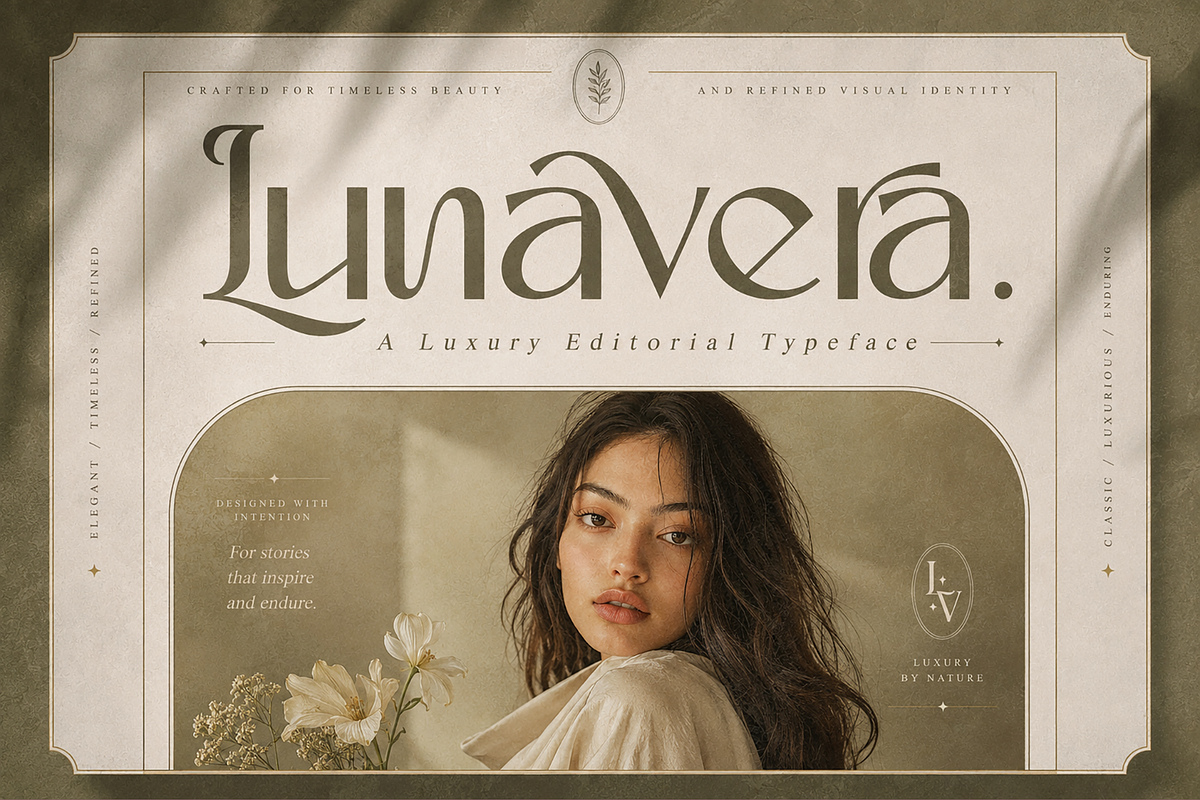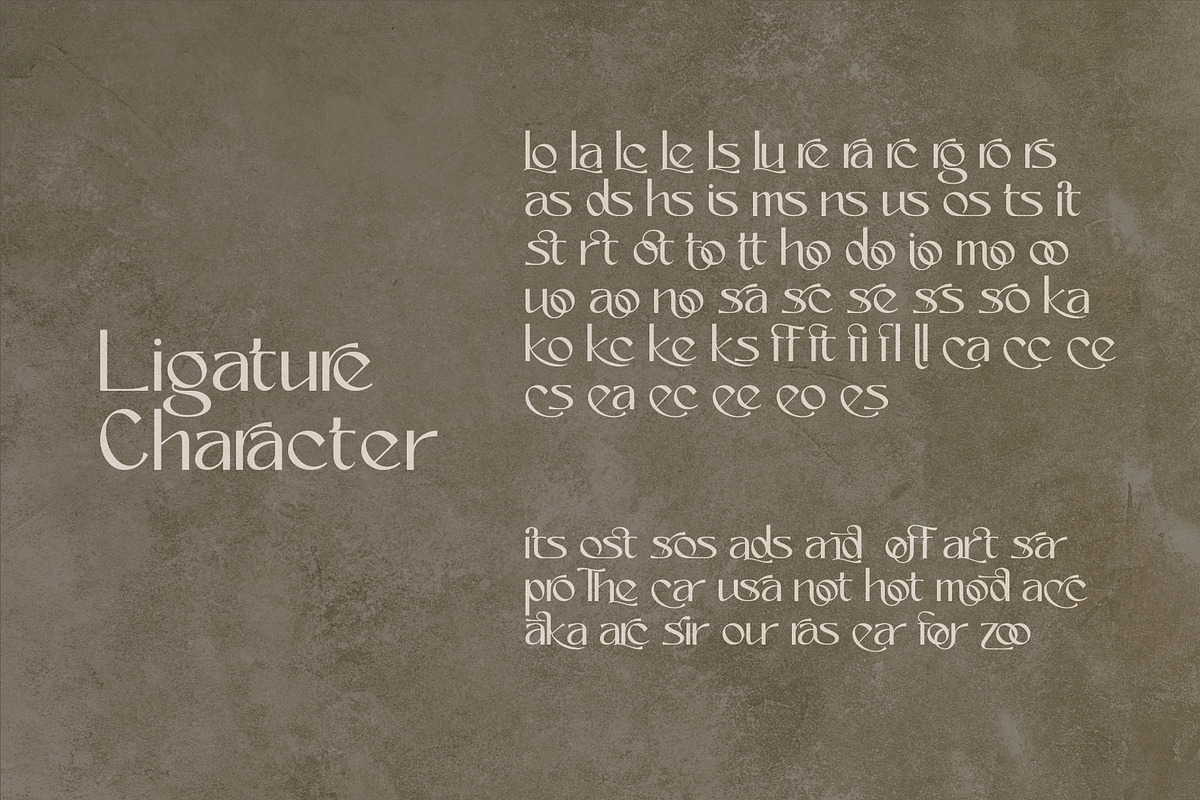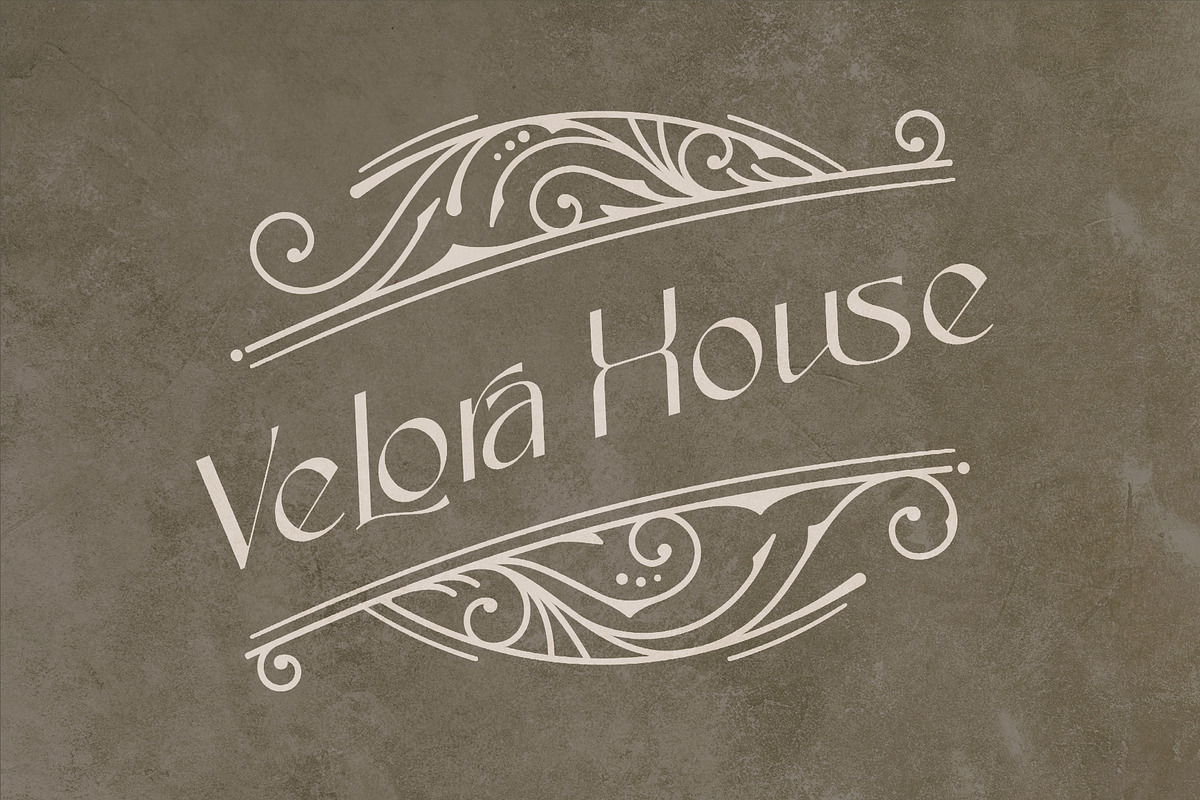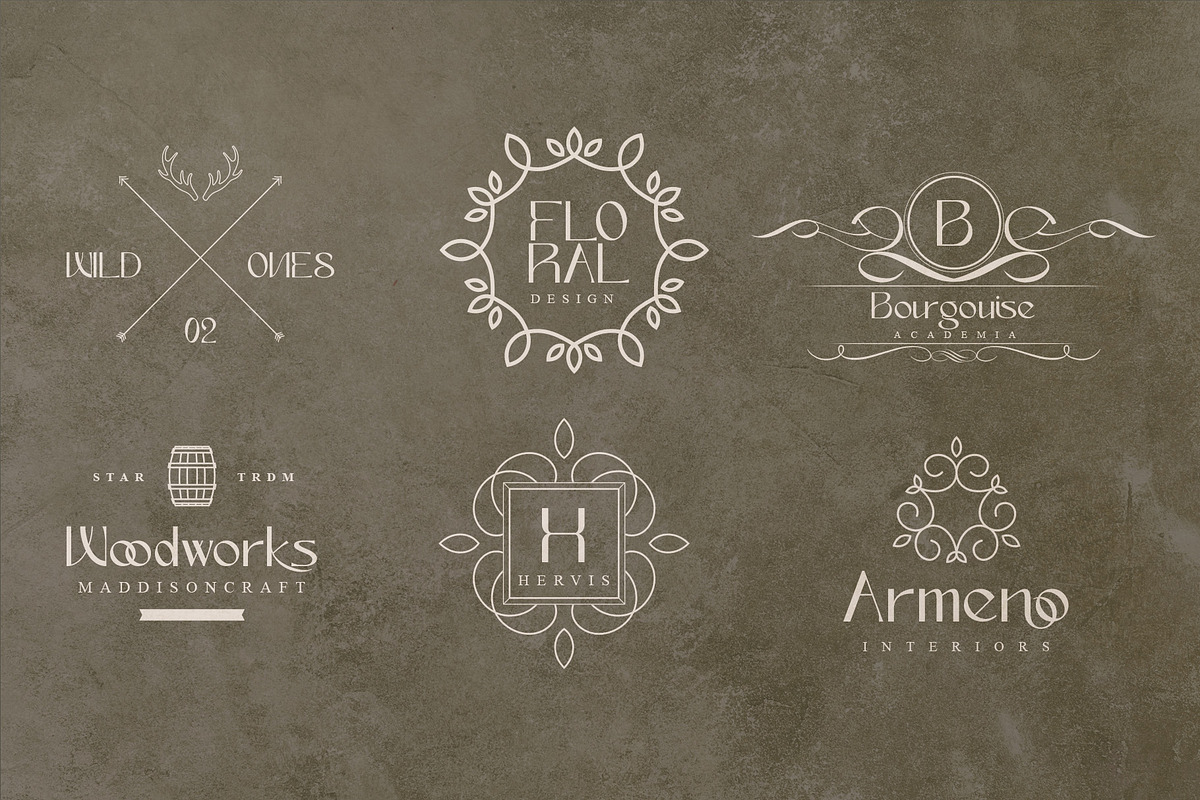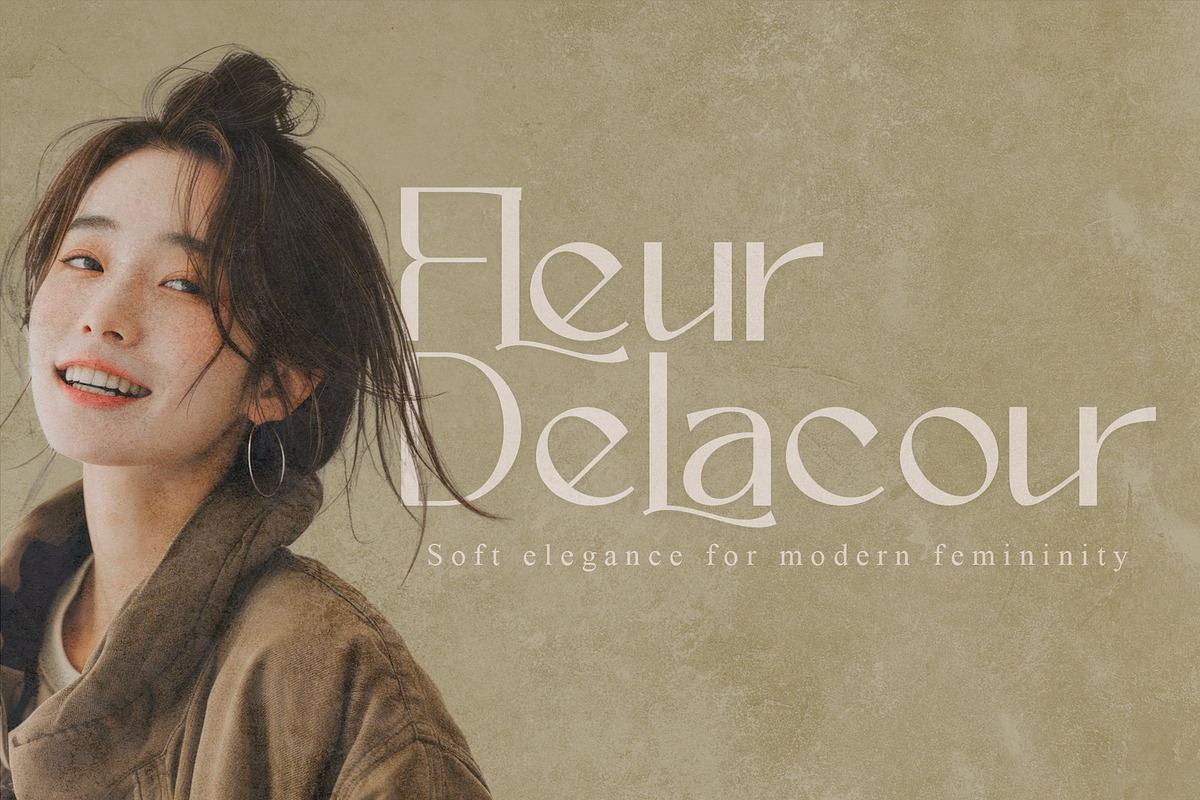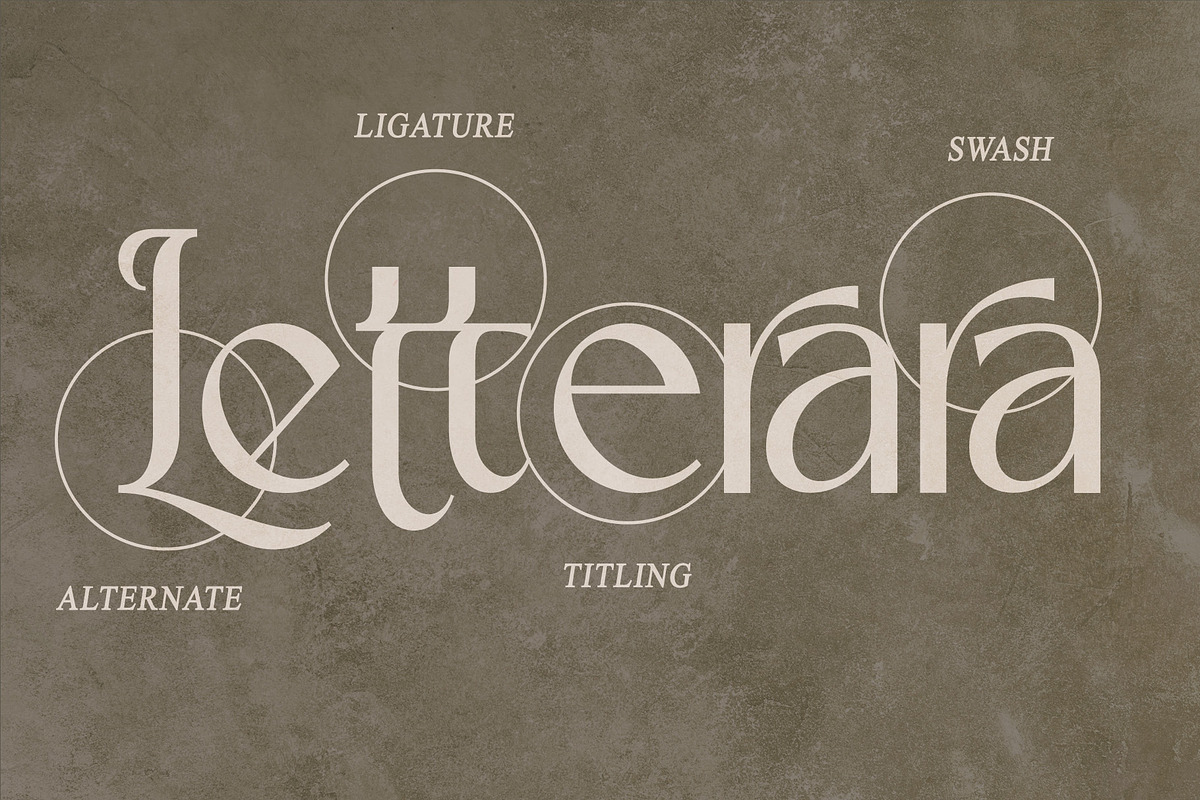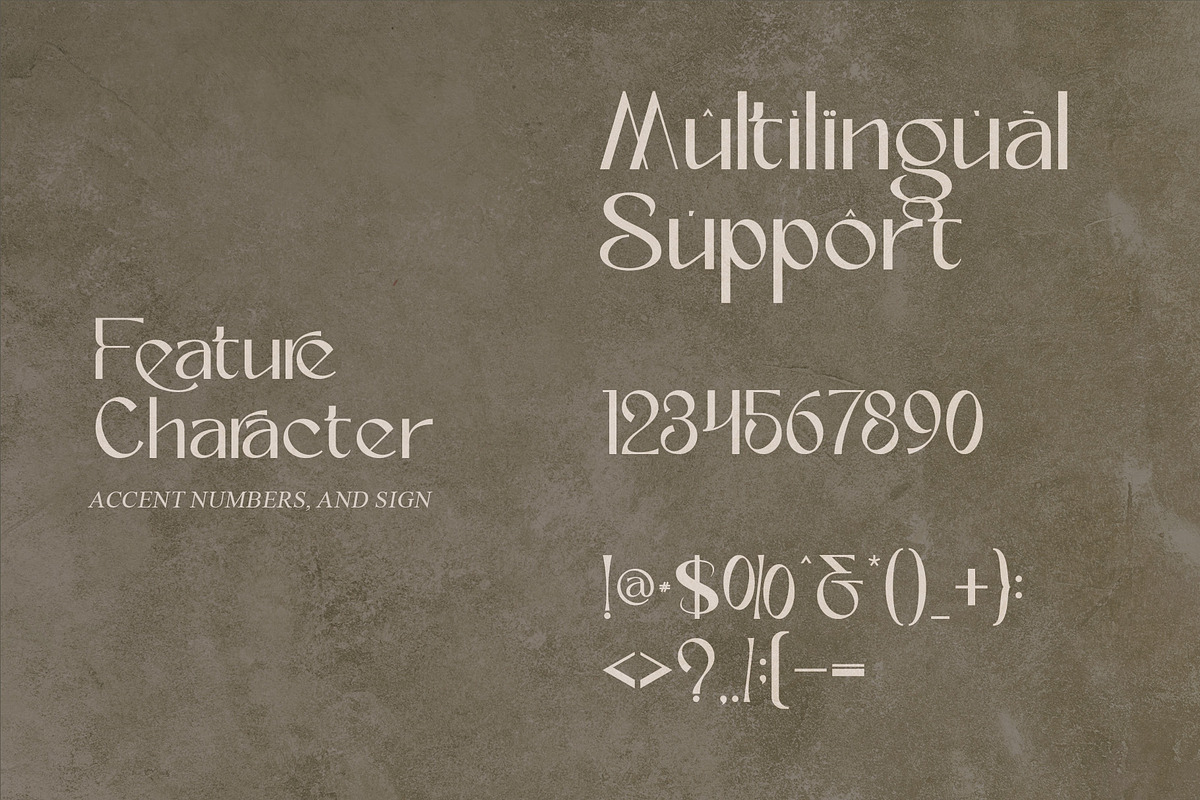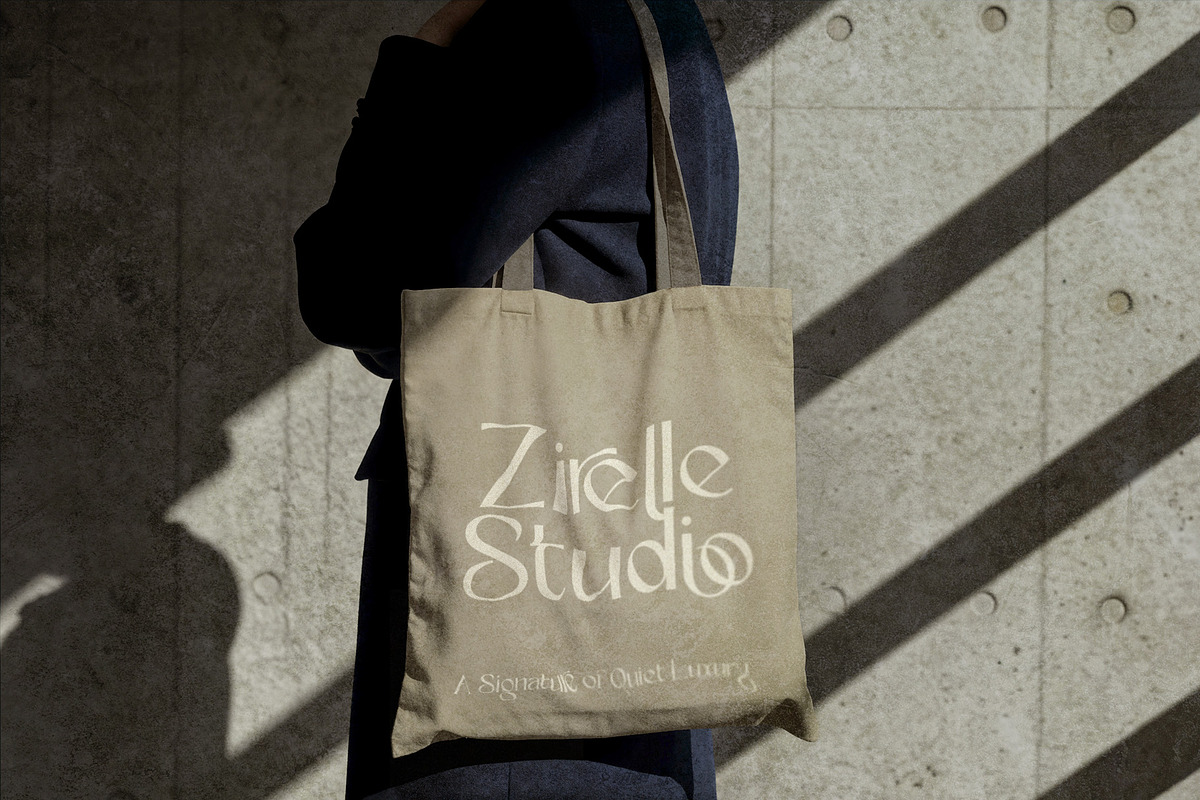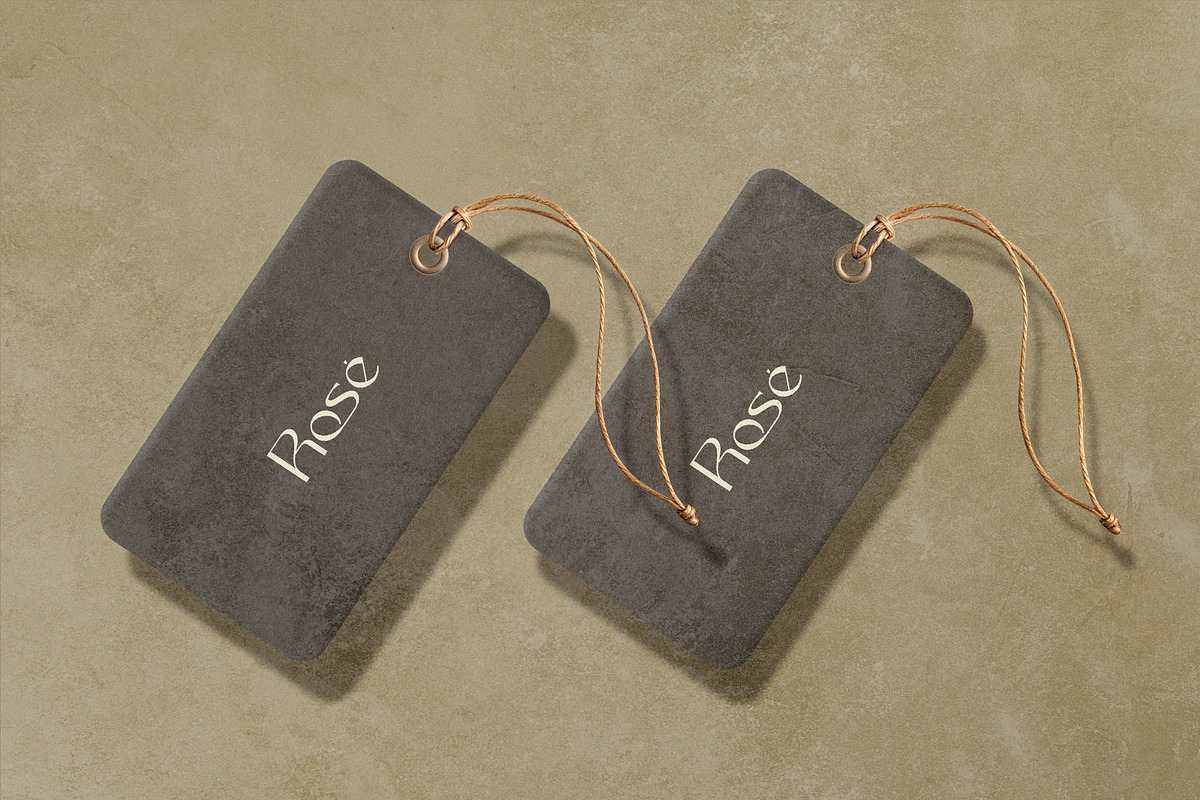
Lunavera - Luxury Serif Font
Lunavera is a refined luxury editorial serif font created for elegant branding, sophisticated publications, and timeless visual identities. Its graceful curves, high-contrast letterforms, artistic details, and distinctive proportions bring a polished, fashion-forward presence to every composition.
Inspired by luxury magazines, contemporary fashion, premium beauty brands, and timeless editorial typography, Lunavera balances classic elegance with a modern artistic character. The result is a memorable display typeface that feels sophisticated, expressive, and effortlessly stylish.
Lunavera is especially effective for luxury logos, fashion branding, beauty and skincare packaging, perfume labels, magazine covers, jewelry branding, book titles, and premium advertising.
Support multilingual; ä ö ü Ä Ö Ü ß ¿ ¡
uppercase letters
Alternate, swash, titling, & Ligature